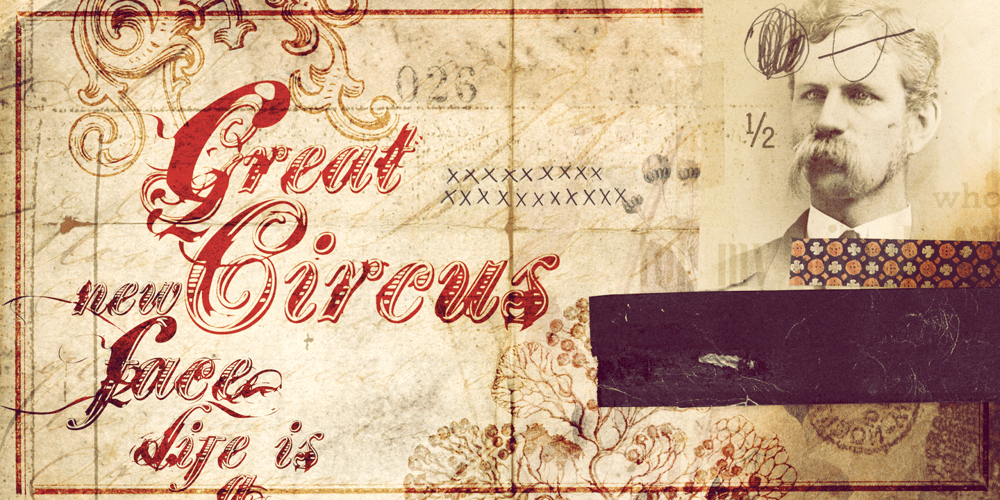
Great Circus Font Family was designed by Eduardo Recife and published by Misprinted Type. Great Circus contains 5 styles and family package options. Great Circus is a Script Circus-like font that works perfectly for that Subversive Freak Show look! It comes with 3 typefaces: Great Circus Clean, Dirty and X. Try incorporating the X version on top of words to achieve that custom effect!